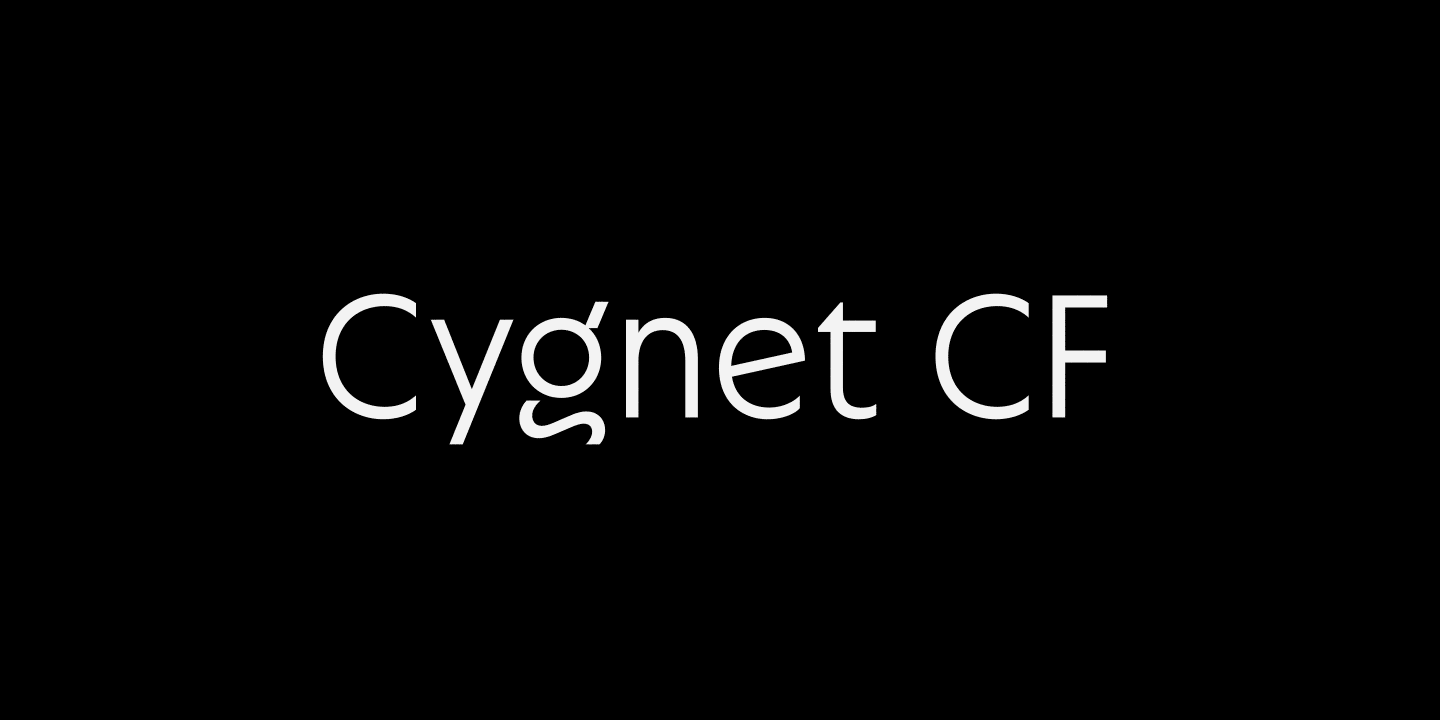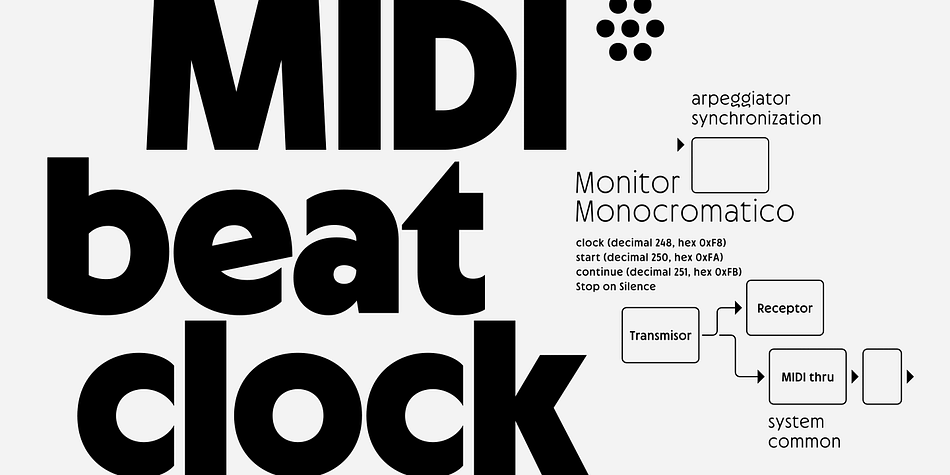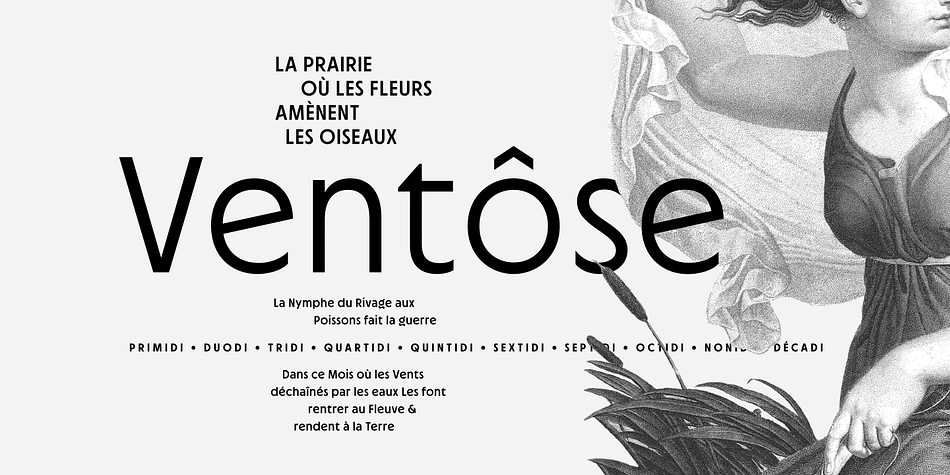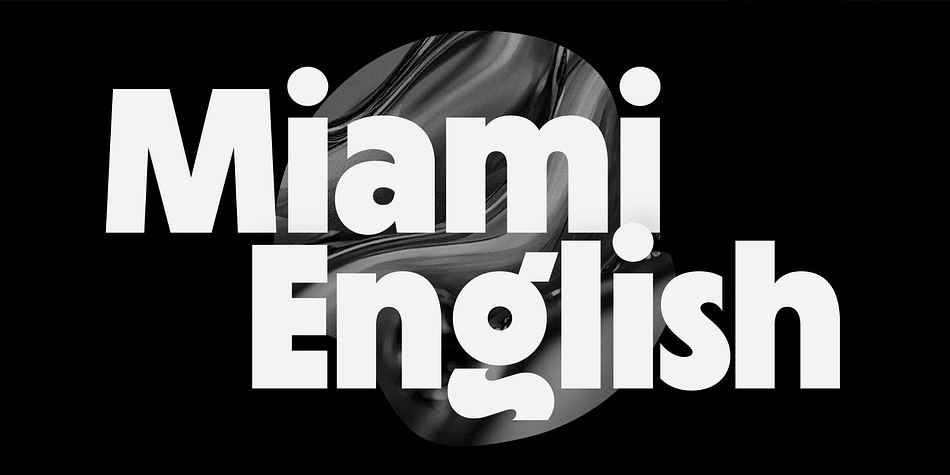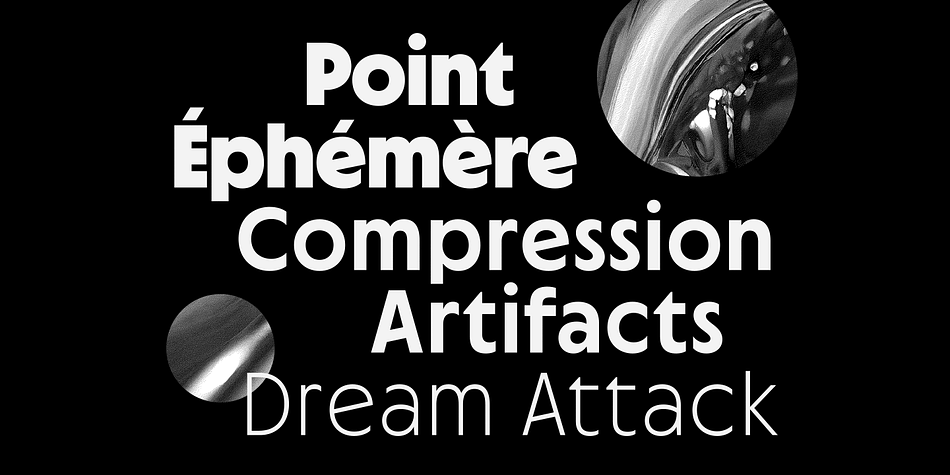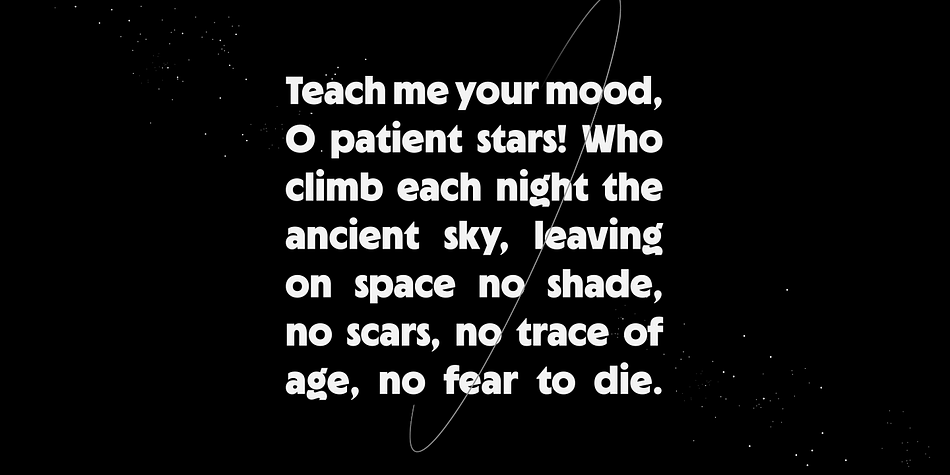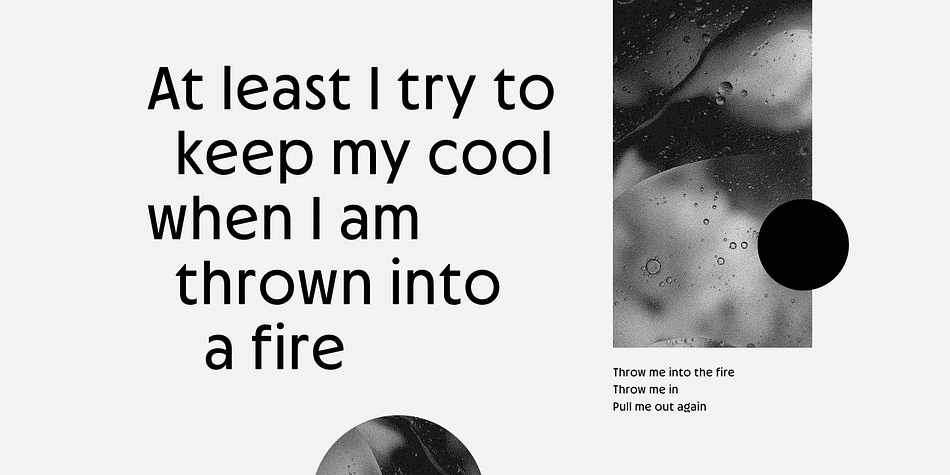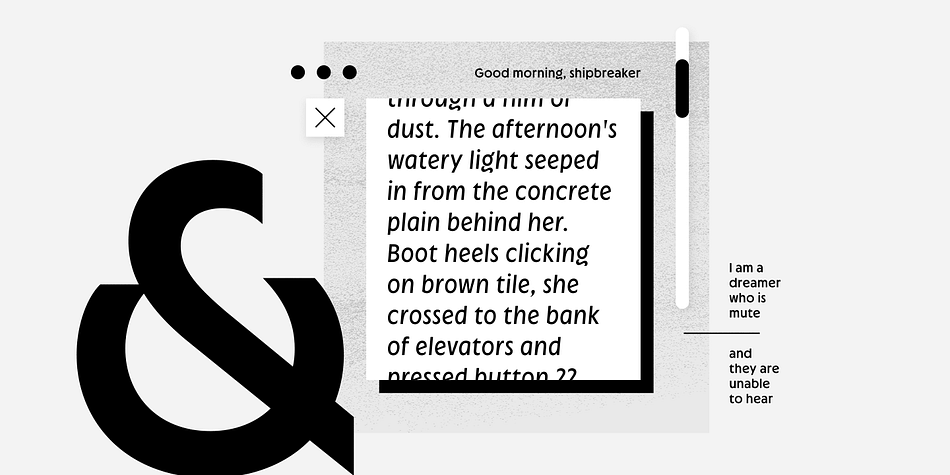
Cygnet CF
Designed by Connary Fagen, Cygnet CF is a sans serif font family. This typeface has eighteen styles and was published by Connary Fagen Type Design.
Cygnet CF charms with classic warmth and curious verve. An absurdly generous x-height makes this surprisingly readable and versatile display typeface perfect for headlines, captions, logos, and more. Nine weights plus italics grant a wide range of applications and moods, from sweet and elegant thins to intense and playful bolds.
Nine weights with italics
Extensive Latin script support for multiple languages
OpenType features including alternates